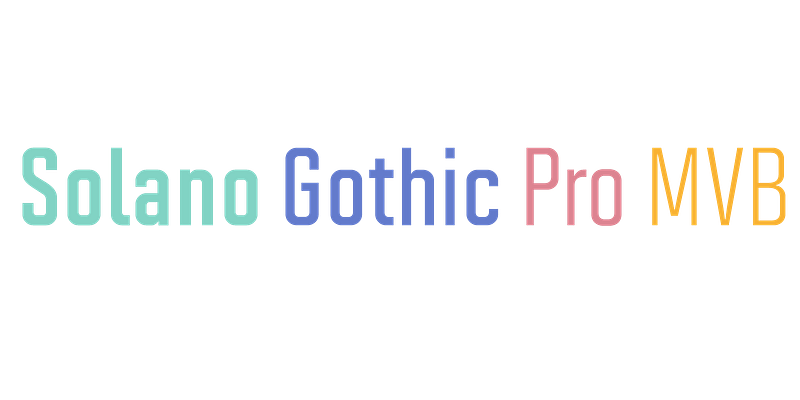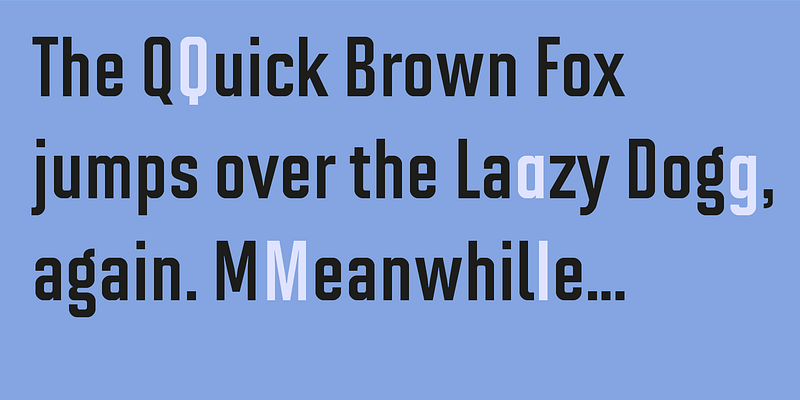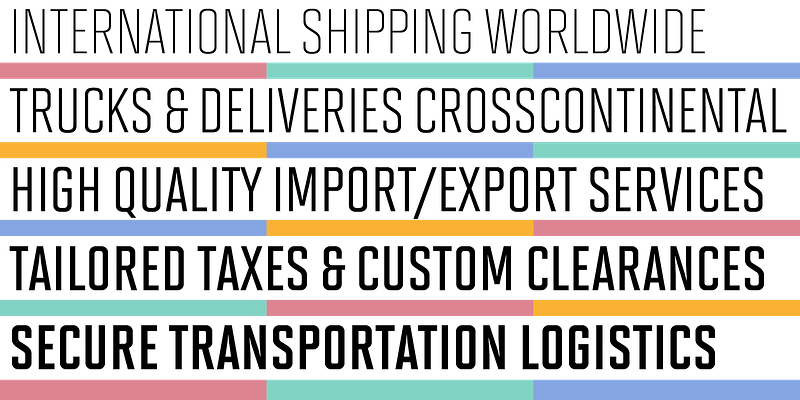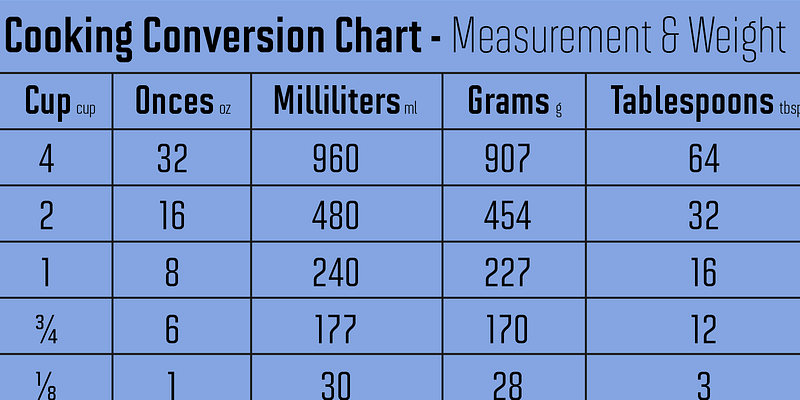
MVB Solano Gothic Bold was originally designed as a display face for the City of Albany, California (located on the San Francisco Bay facing the Golden Gate Bridge and bordering Berkeley). Named for the City’s main street, the typeface needed to work on signage in proximity to early 20th Century buildings, and in contemporary settings. Rather than creating a neutered design to cover all bases, Mark van Bronkhorst chose to develop a simple, strong, condensed face that would offer flexibility of style by providing both retro and more contemporary forms.
Solano Gothic has since been expanded to a family offering five weights from Light to Bold.
The basic fonts provide upper- and lowercase forms, with figures designed to harmonize within upper- and lowercase settings (the standard figures are not full cap height). The same figures are provided with Small Caps, and align to small cap height. For all-cap settings requiring figures and monetary symbols of full-cap height, there are the “Cap” fonts. An alternate tabular “1” is provided in all fonts so that both fitted and tabular settings of figures are possible (access to alternate characters subject to system or application support).